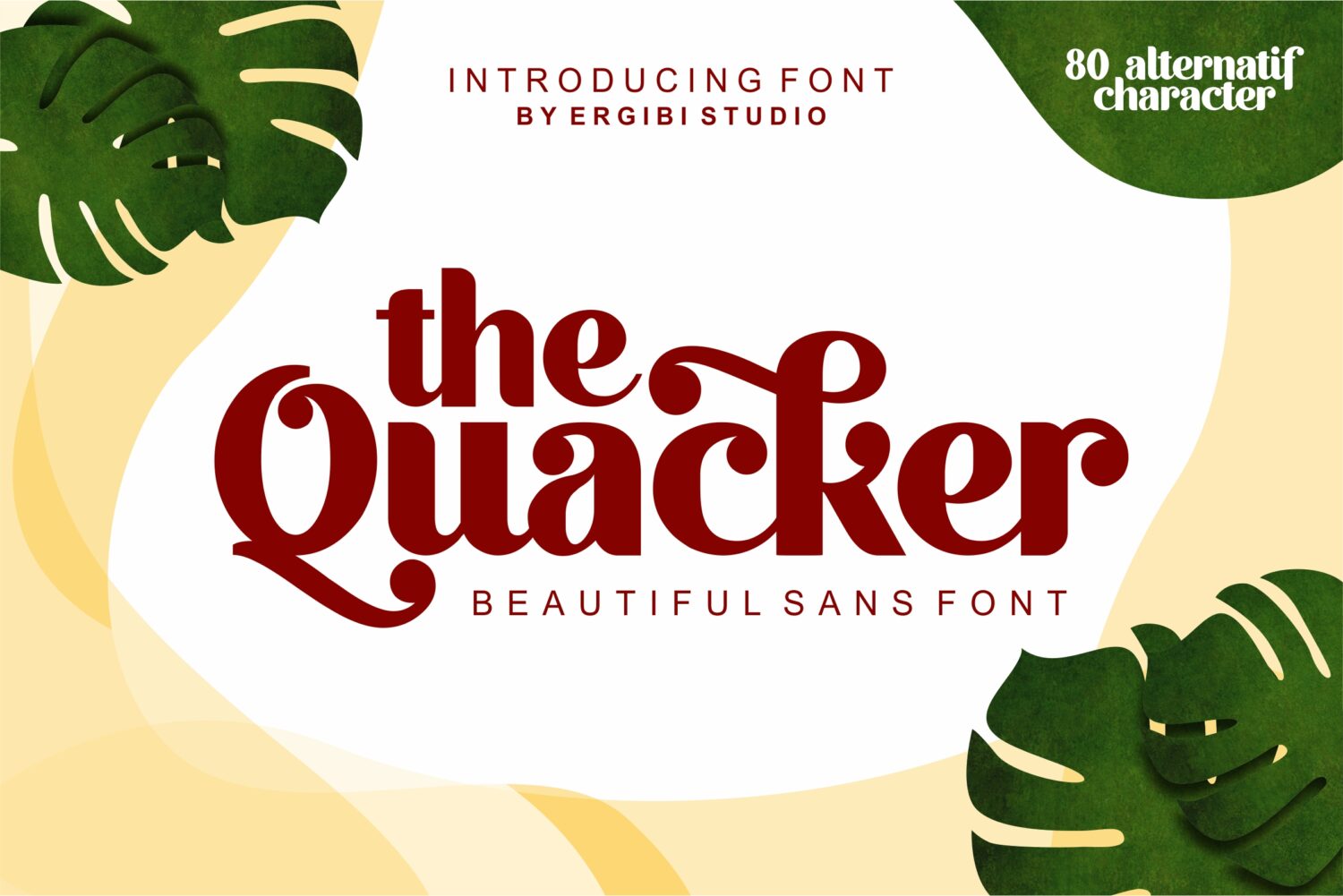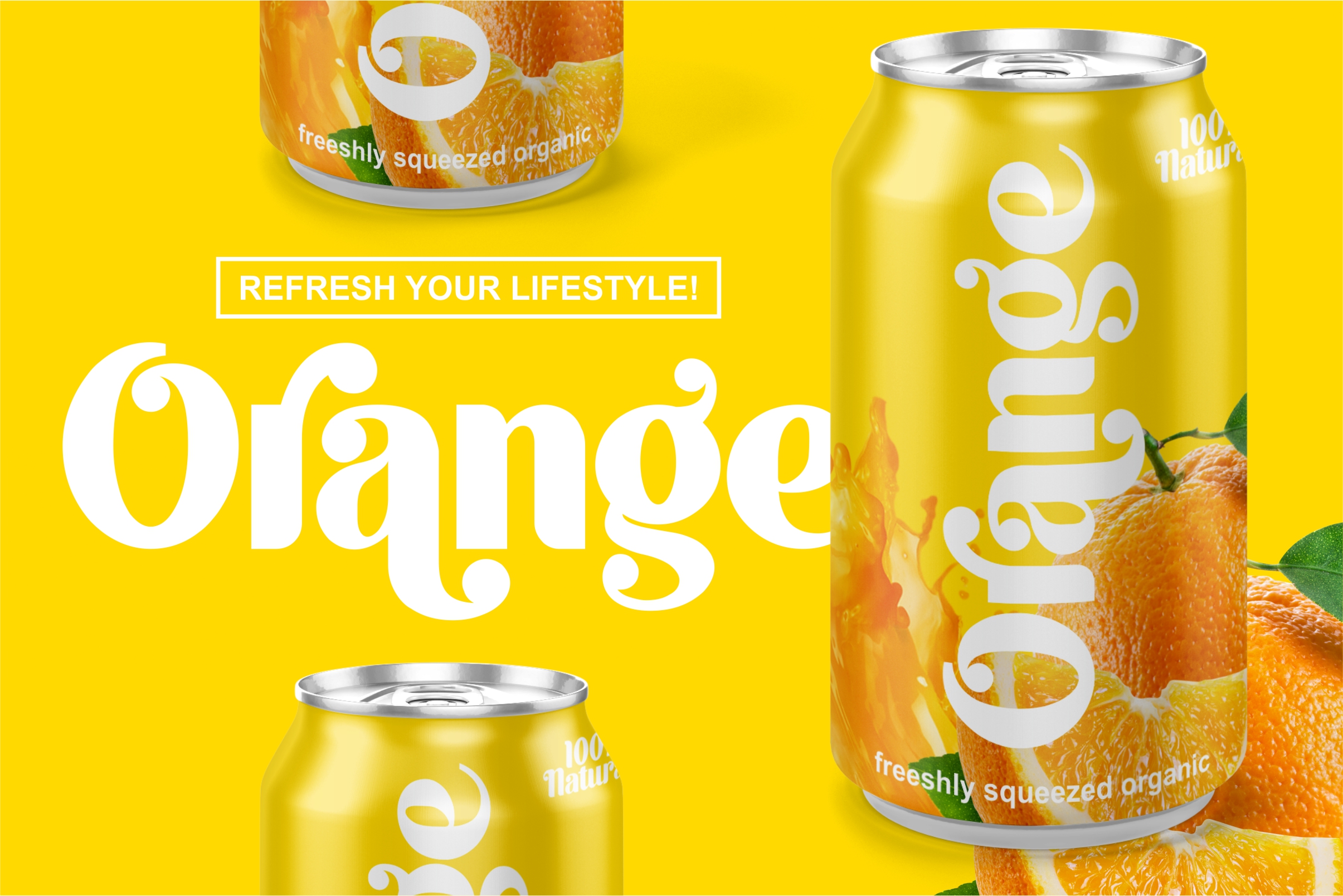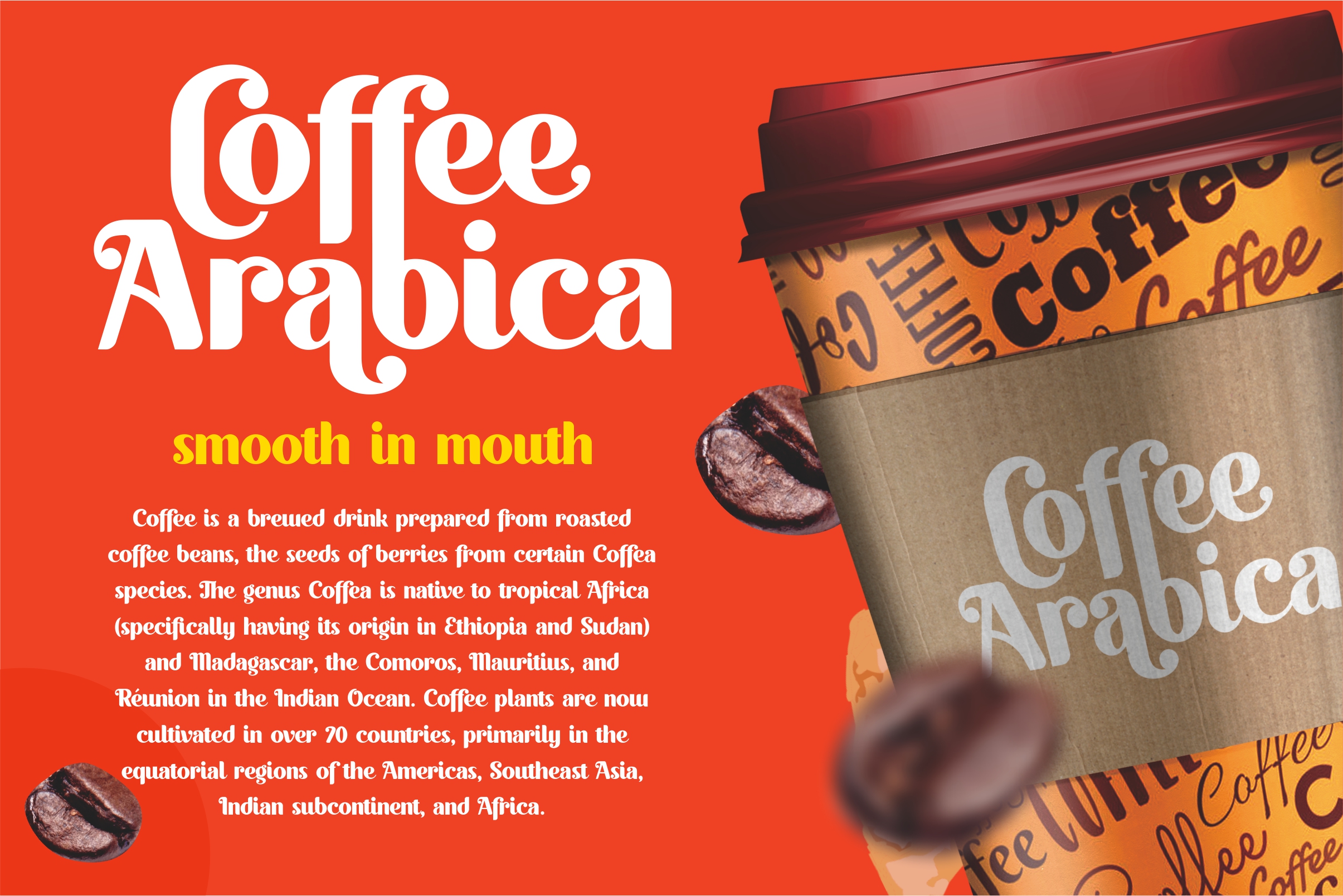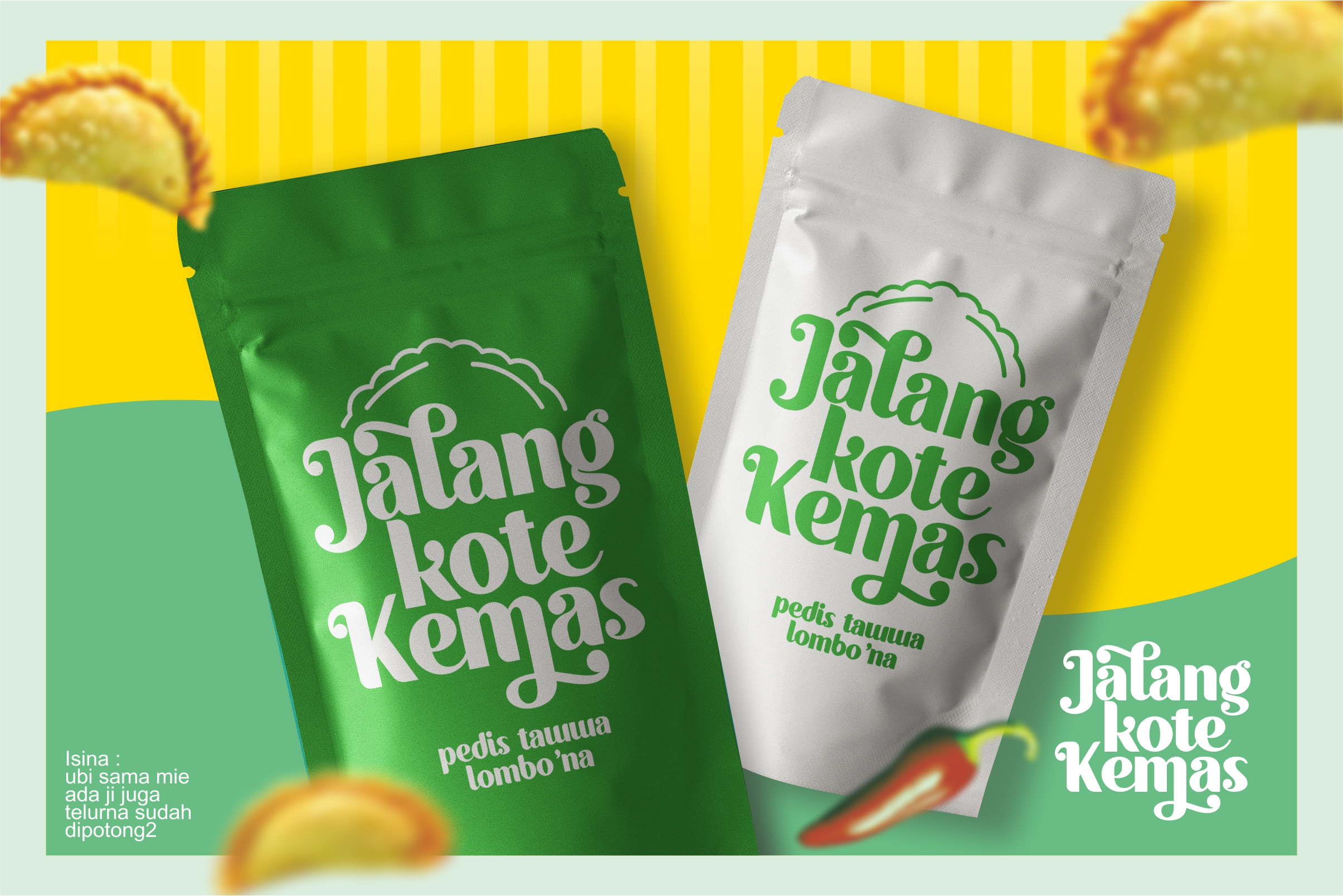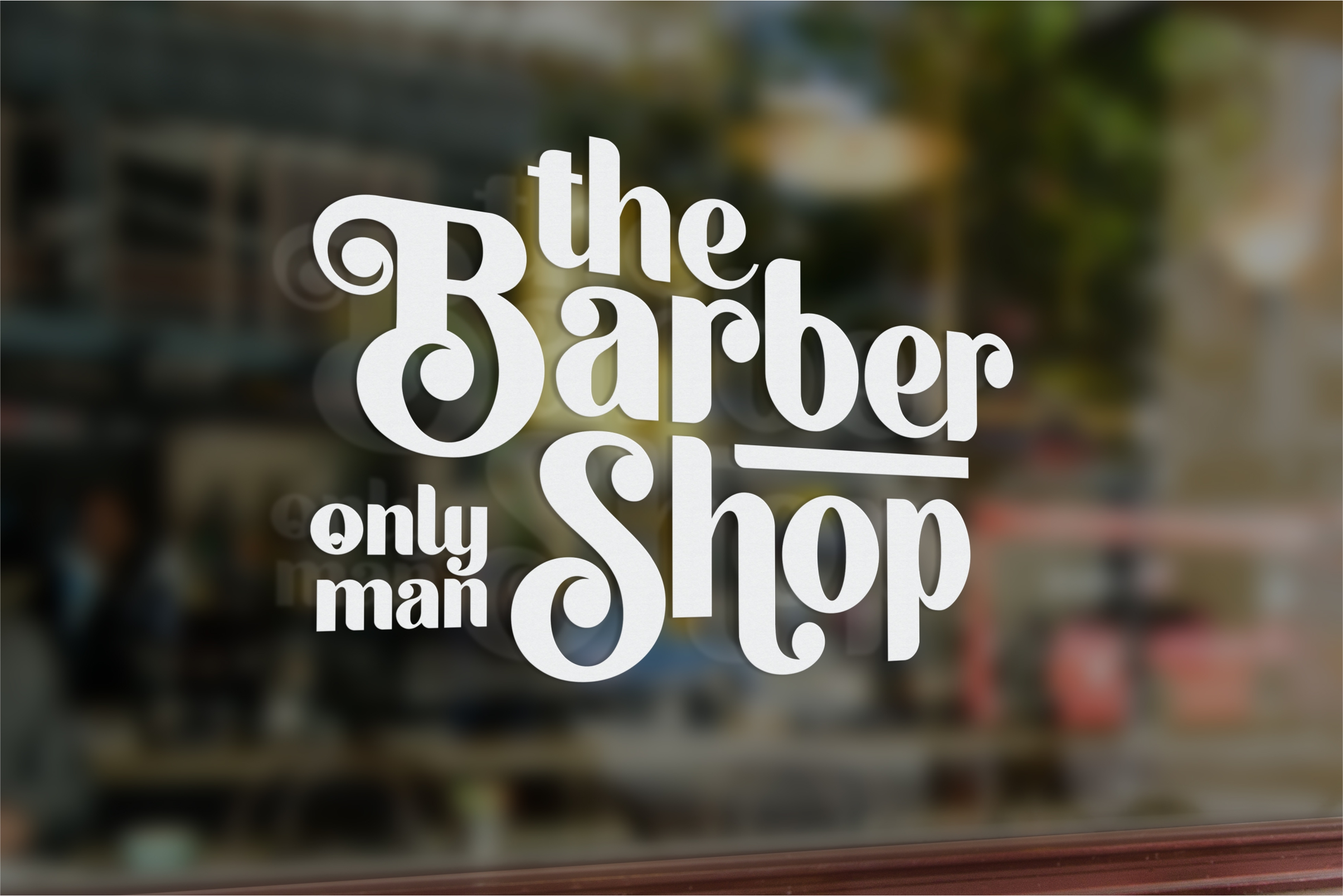
Quacker Free Font
Quacker Free Font is a new font collection from Quacker fonts equipped with 80 alternative characters that make this font look beautiful. Alternative letters are provided to make this font look sweet and classy very good for your work such as logos, brands, packaging, posters, invitations, instastories, and your ad needs. This free typeface was designed by a talented Ergibi Studio. If you like it don’t forget to check out the full version.